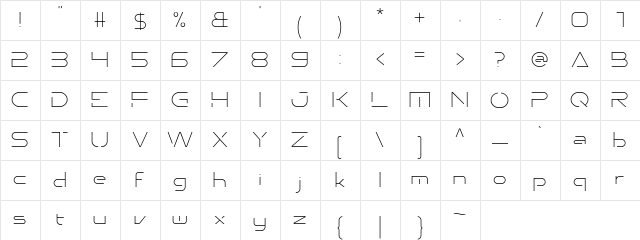
Emporium Thin Regular
Design Context for Emporium Thin Typeface
Emporium Thin takes a measured approach to typography — its balanced proportions and neutral character make it a reliable workhorse for both digital and print work. Its slender proportions lend an understated elegance to any composition.